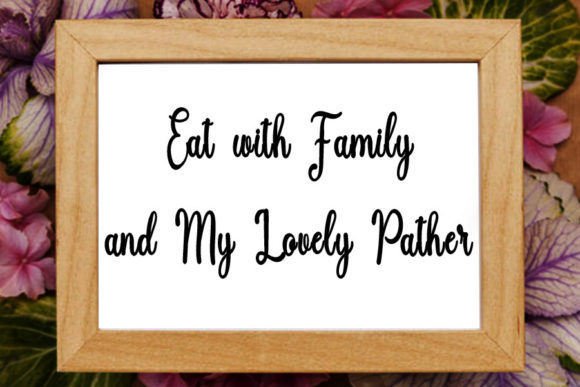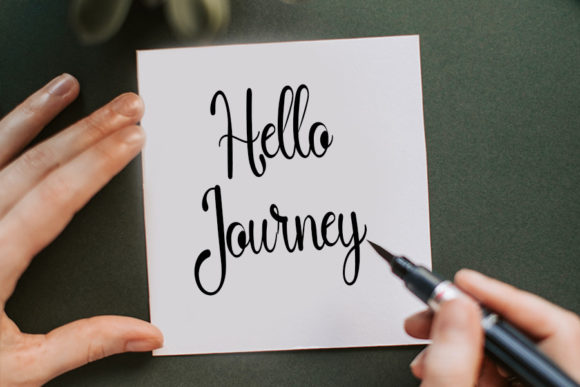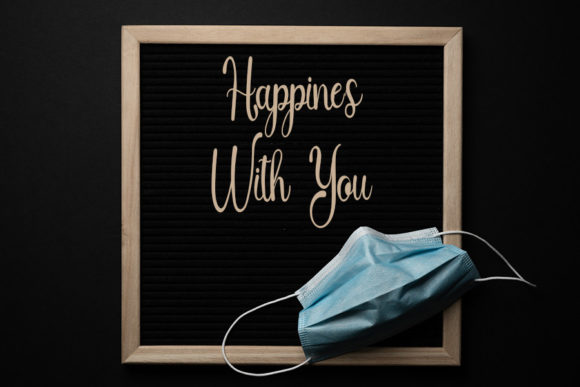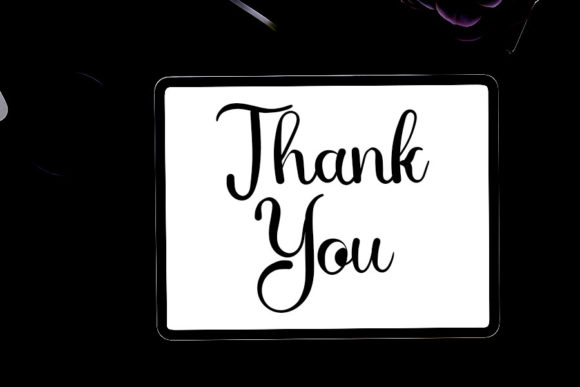
Welcome Rainbow Font
About Welcome Rainbow Font
Welcome Rainbow is a chic, refined script font that emanates sophistication and elegance. Its stylish alternates and ligatures make this font the perfect match for any project.